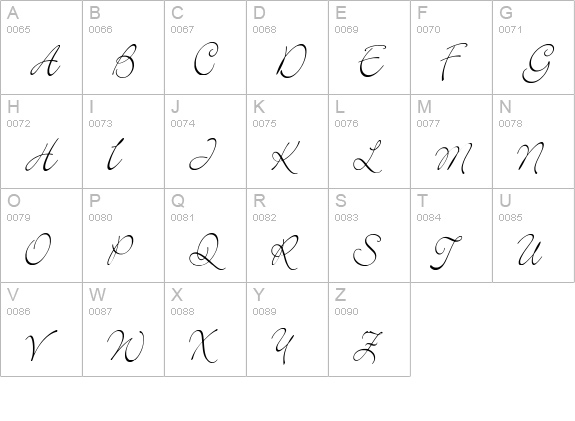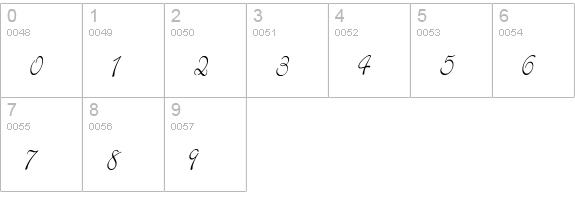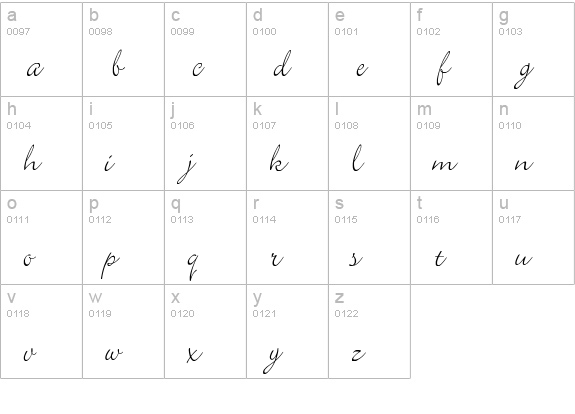
Elegant Font Details
Elegant font is a sophisticated and stylish typeface that exudes charm and grace. With its sleek lines and elegant curves, this font is perfect for adding a touch of sophistication to any project. Whether you're designing wedding invitations, creating a logo, or crafting a brand identity, Elegant font is sure to make a lasting impression. The best part? Elegant font is available for free download at FontsMarket.com. Simply visit the website, search for Elegant font, and start using this beautiful typeface in your designs today. Don't miss out on the opportunity to add a touch of elegance to your work with this stunning font, now available for free.